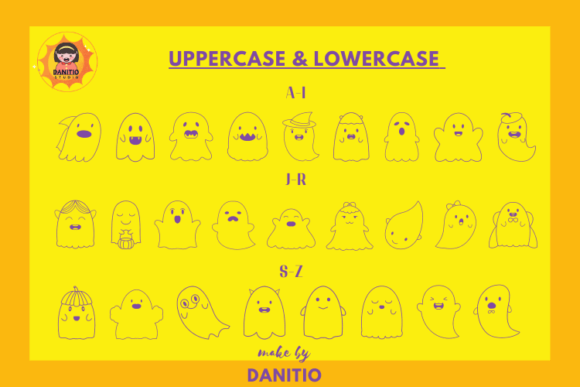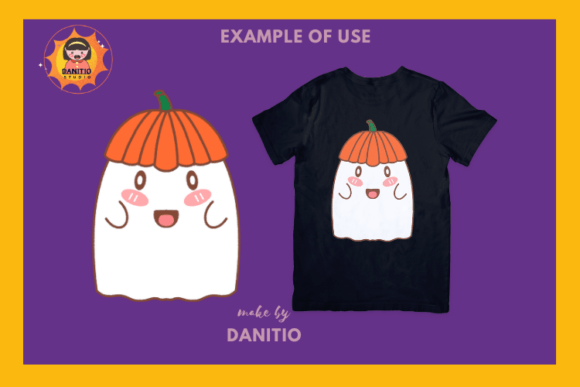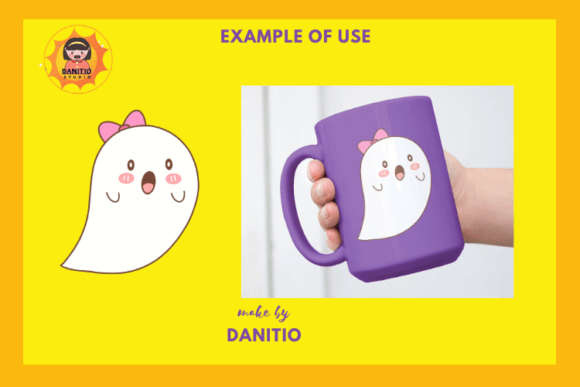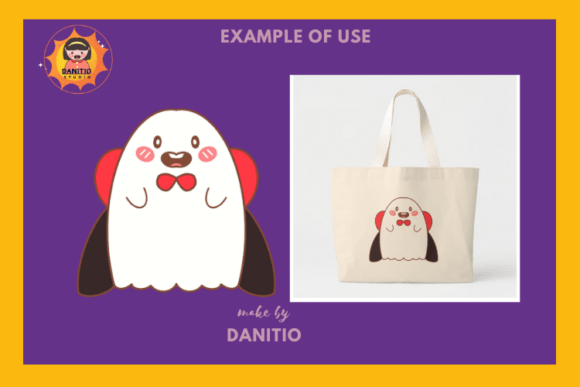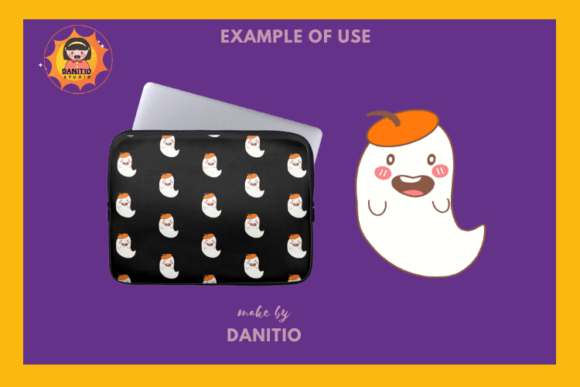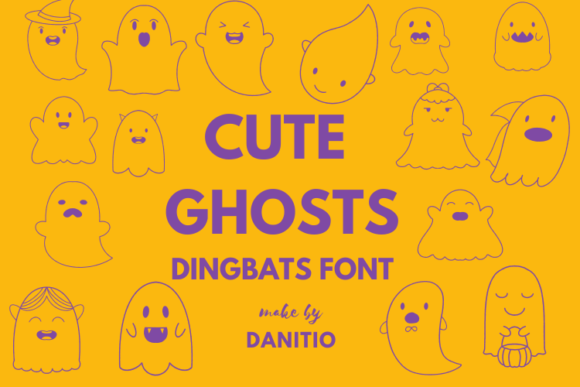
Cute Ghost Font: The Perfect Addition to Your Halloween Designs
Are you looking for a unique and charming font to add a touch of spooky fun to your designs this Halloween season? Look no further than the Cute Ghost Font, a delightful Dingbats font that’s sure to bring a smile to your audience’s faces. With its adorable ghosts and stylish look, this font is perfect for designers and crafters who want to create eye-catching and engaging projects.
What is Cute Ghost Font?
Cute Ghost Font is a Dingbats font that features a variety of cute and charming ghosts, each with its own unique personality. The font is designed to be used for a range of projects, from Halloween-themed party invitations and decorations to social media graphics and blog posts. With its unusual and stylish look, Cute Ghost Font is sure to add a touch of whimsy and fun to any design.
Why Use Cute Ghost Font?
There are many reasons why Cute Ghost Font is the perfect choice for your Halloween designs. Here are just a few:
- Unique and eye-catching: The Cute Ghost Font features a range of adorable ghosts that are sure to grab attention and add a touch of personality to your designs.
- Versatile: This font can be used for a wide range of projects, from party invitations and decorations to social media graphics and blog posts.
- Perfect for Halloween: With its spooky yet cute ghosts, this font is the perfect choice for any Halloween-themed project.
Design Ideas Using Cute Ghost Font
Here are some design ideas to get you started with Cute Ghost Font:
- Halloween party invitations: Create eye-catching party invitations featuring the Cute Ghost Font and a range of adorable ghosts.
- Social media graphics: Use the Cute Ghost Font to create spooky yet fun social media graphics, such as Halloween-themed Facebook posts and Twitter headers.
- Blog posts: Add a touch of personality to your Halloween-themed blog posts with the Cute Ghost Font.
- Decorations: Use the Cute Ghost Font to create Halloween decorations, such as ghostly garlands and banners.
Here are some tips and tricks to help you get the most out of Cute Ghost Font:
- Experiment with different ghost combinations: Try combining different ghosts to create unique and eye-catching designs.
- Use contrasting colors: Use contrasting colors to make your ghosts stand out and add visual interest to your designs.
- Add textures and patterns: Add textures and patterns to your designs to give them a more spooky and eerie feel.